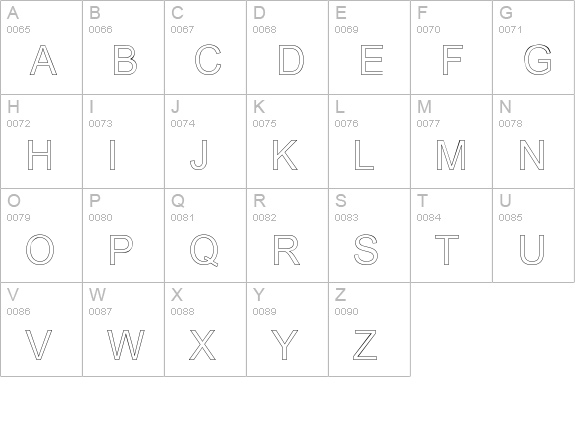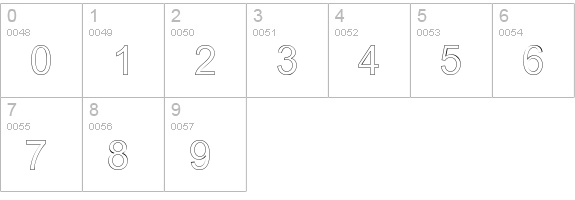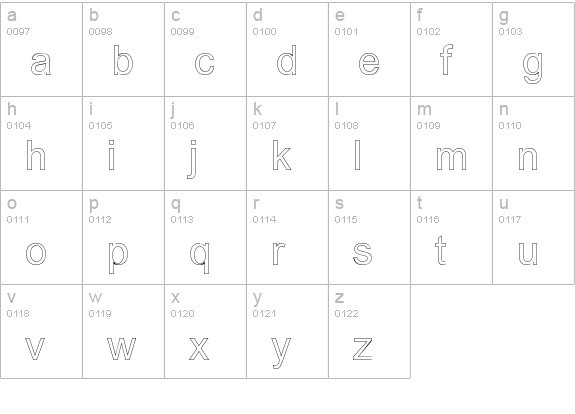
Arialic Hollow Font Details
Arialic Hollow is a whimsical and elegant font that exudes a sense of charm and sophistication. Its delicate letterforms are intricately designed with a hollowed-out effect, giving it a unique and eye-catching appearance. This font is perfect for adding a touch of flair to your projects, whether you're creating invitations, logos, or branding materials. The best part? Arialic Hollow is completely free to download at FontsMarket.com. You can easily access this stylish font and elevate your designs without any cost. Don't miss out on this opportunity to enhance your creative projects with the beauty of Arialic Hollow. Download it today and let your creativity shine!